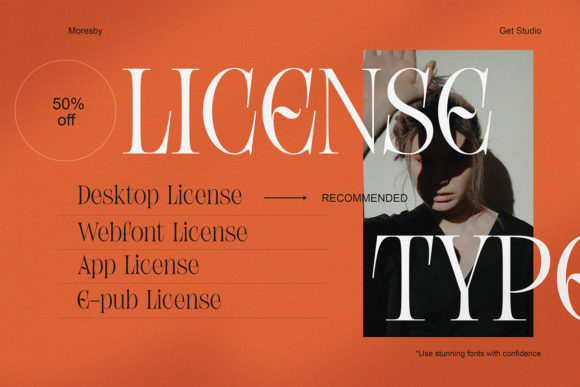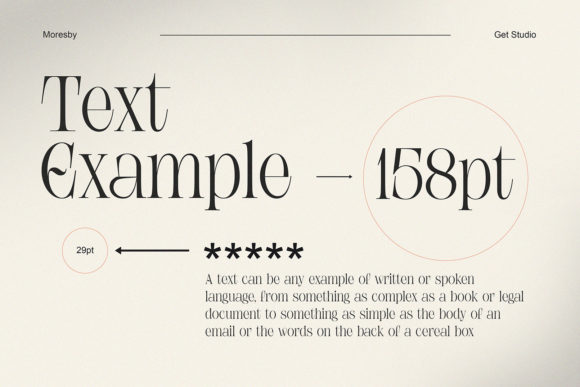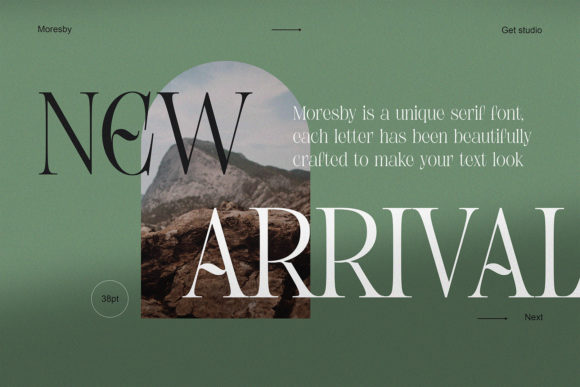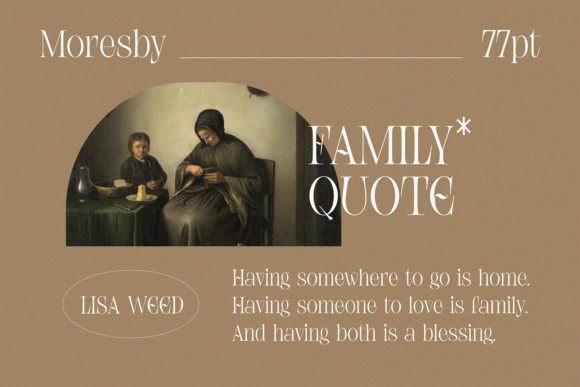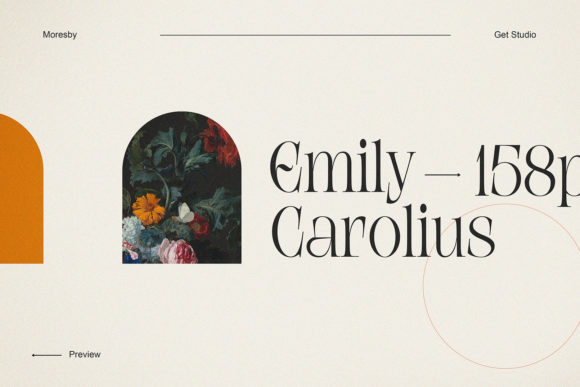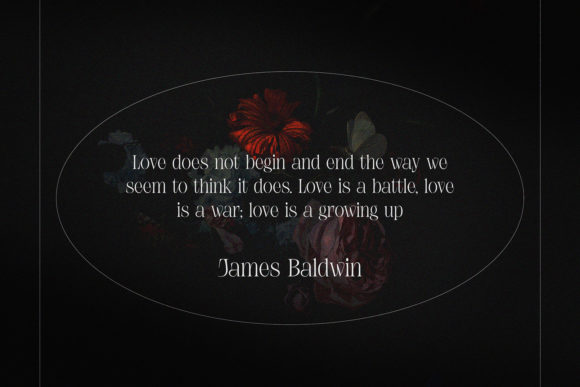
Introduction to Moresby Font
Remember that moment when you’re working on a creative project and you just can’t find the right font to make it pop? The hours spent browsing through design resources, scrolling through font websites, and trying out different styles until you finally stumble upon that one font that takes your project to the next level. For designers, finding the perfect font can be a game-changer, and that’s exactly what the Moresby Font offers.
With its unique aesthetic and sharp shape, the Moresby Font is a valuable addition to any designer’s toolkit. Whether you’re working on a modern retro design or need a bold style to make your creation stand out, this font is sure to deliver. Plus, with its high-quality design and free download option, you can use it on a transparent background or for any other project that requires a touch of sophistication.
Key Features of Moresby Font
- Features a unique, elegant design with a transparent background for versatility
- Includes a range of characters and glyphs, making it suitable for a variety of applications
- Supports various languages and scripts, making it a valuable resource for multilingual projects
Honest Review: Moresby Font
I recently stumbled upon the Moresby Font, a free design resource that has been making waves in the creative community. As a designer, I was excited to give it a try and see if it lived up to the hype.
What works well: ✨ The Moresby Font has a unique, hand-drawn feel that adds a touch of personality to any project. The font is highly customizable, making it perfect for designers who want to add a personal touch to their creative projects. The transparent background option is also a huge plus, allowing designers to easily layer the font over images or other design elements.
- High quality: The Moresby Font is a high-quality design resource that is perfect for professional designers.
Limitations: ⚠️ While the Moresby Font is a great option for many designers, it may not be suitable for projects that require a more formal or traditional font style. Additionally, some users may find the font’s unique style to be a bit too quirky or unconventional.
Overall impression: I was impressed with the Moresby Font’s unique style and high-quality design. While it may not be perfect for every project, it’s definitely a valuable addition to any designer’s toolkit. Whether you’re working on a creative project or just looking for a fresh new font, the Moresby Font is definitely worth checking out.
The Moresby Font is a versatile, high-quality design resource ideal for various creative projects. It features a transparent background, making it perfect for overlaying text on images or using as a standalone element.
Experiment with different font sizes and styles to achieve the desired effect. You can also use the font in combination with other design elements to create a cohesive look.
The Moresby Font is perfect for:
- Food and drink branding
- Travel and adventure projects